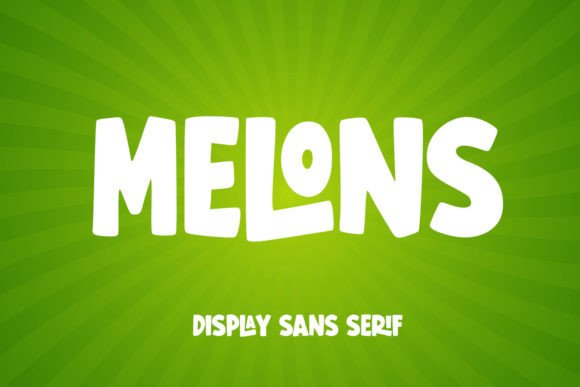
Melons Font - the best font for book spines! Created by Abodaniel, this sans display font is perfect for designers looking to add some fun and cheer to their projects. Its whimsical and bright nature is sure to attract the attention of kids and adults alike.
Melons Font is the ideal choice for book spines that need to stand out on a shelf. Its unique design will make your book cover pop, drawing readers in with its playful vibe. Not just for book spines, this font is versatile and can be used in a variety of designs, from invitations to posters and more.
Abodaniel's Melons Font is easy to read and pleasing to the eye, making it the perfect choice for all your design needs. Its playful nature adds a touch of joy to any project, making it an ideal option for kid-friendly designs. Plus, it's available for download now, so you can start using it in your projects today!
Choose Melons Font for your next design project and watch it come to life with a fun and cheerful vibe. Get creative and use it to add some personality to your book spines, invitations, posters, and more. You won't be disappointed!